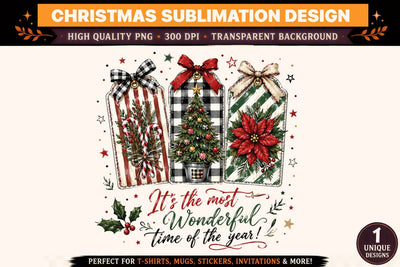
Bring classic holiday charm to your Christmas projects with this beautiful “It’s the Most Wonderful Time of the Year!” design. The artwork features three elegant vintage-inspired Christmas gift tags decorated with candy canes, evergreen branches, a Christmas tree, ornaments, poinsettia flowers, and festive bows, combined with hand-lettered holiday typography.
✔️ Detailed Hand-Illustrated Holiday Artwork
✔️ Classic Vintage Christmas Style
• “It’s the Most Wonderful Time of the Year!” holiday quote
• Three decorative Christmas gift tags
• Buffalo plaid bow
• Red Christmas bow
• Cream & green plaid bow
• Decorated Christmas tree
• Poinsettia flower
• Candy canes
• Evergreen branches
• Holly leaves & berries
• Christmas ornaments
• Hand-drawn stars and snowflakes
• Vintage red, green, black, cream & gold palette